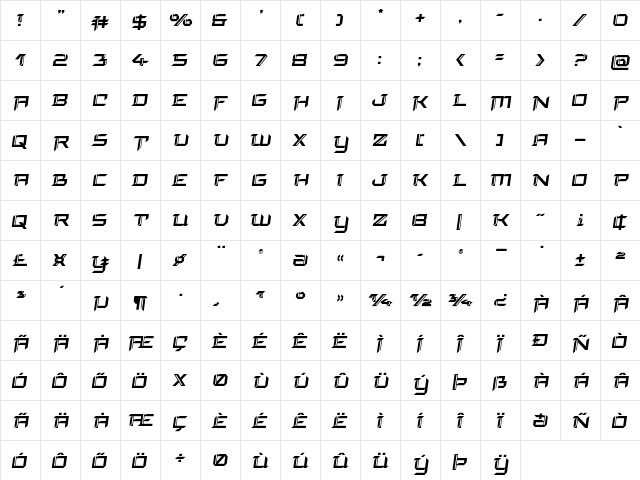
Final Front Semi-Italic Semi-Italic
Design Context for Final Front Semi-Italic Typeface
Final Front Semi-Italic is a composed and adaptable typeface that performs quietly and consistently across a wide range of design contexts. Its italic angle brings a sense of urgency and motion to the letterforms.